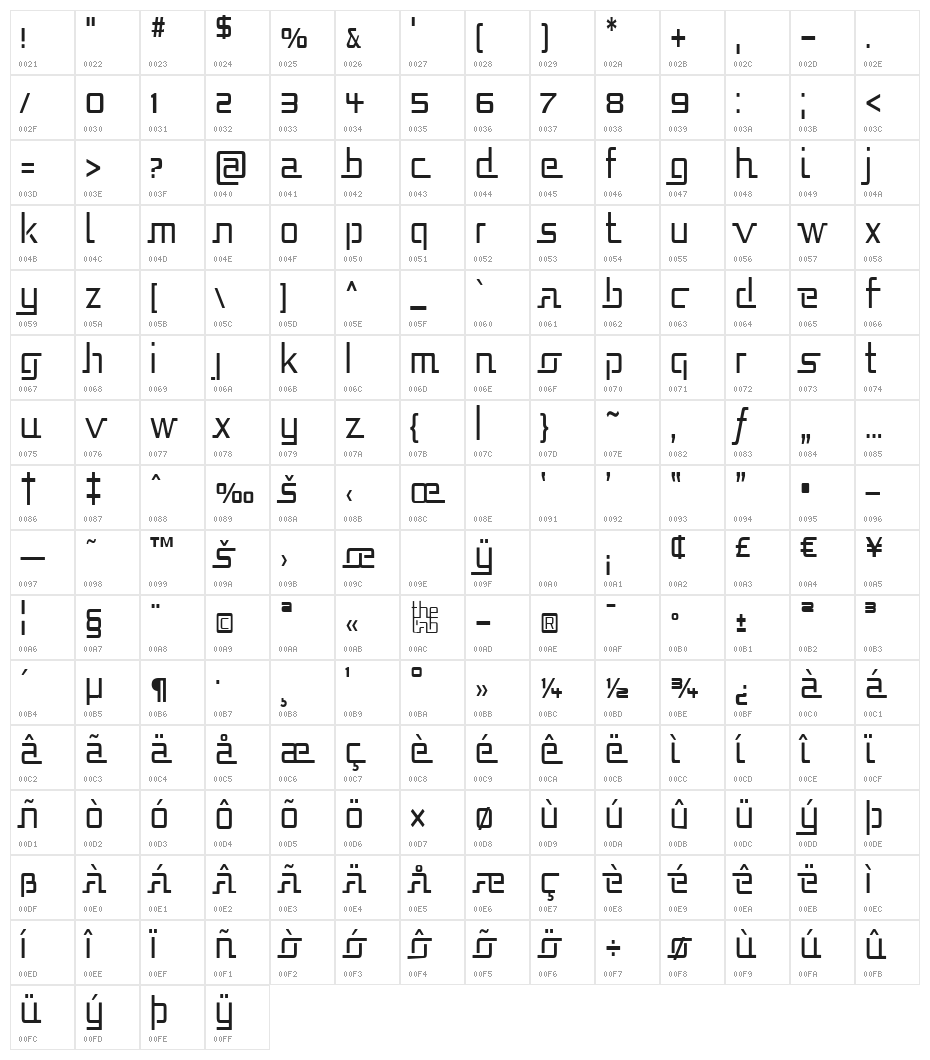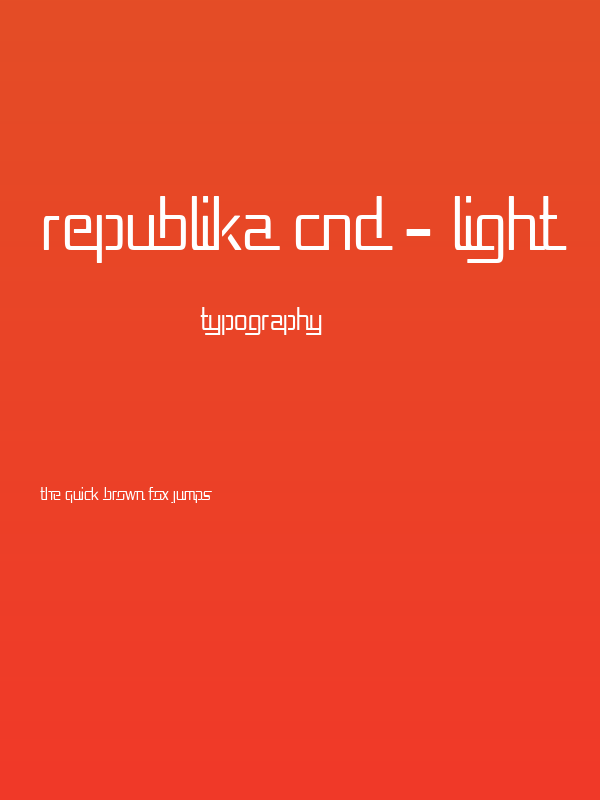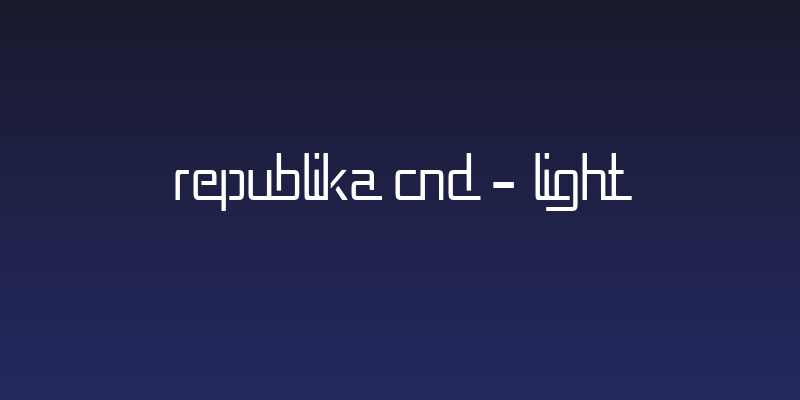
Republika Cnd - Light Font
Republika Cnd - Light Description
This font features a modern, geometric design with a condensed structure. The characters are composed of straight lines and sharp angles, giving it a futuristic and technical appearance. The uppercase and lowercase letters maintain a consistent height, contributing to its uniform look. The numerals and special characters follow the same design principles, ensuring a cohesive style throughout. Its clean lines and minimalistic approach make it suitable for contemporary design projects.
| Use Case | Headlines, Logos, Digital interfaces |
| Proposed Projects | Ideal for technology branding, modern posters, digital interfaces, and futuristic-themed projects. |